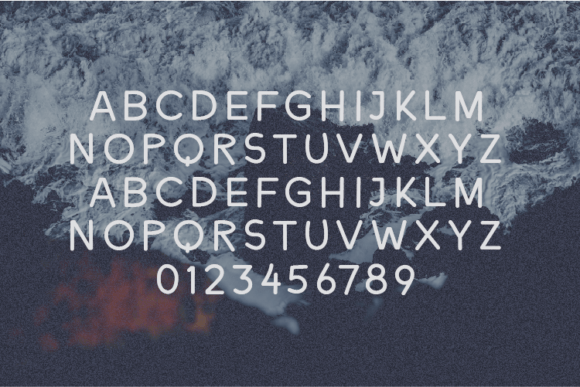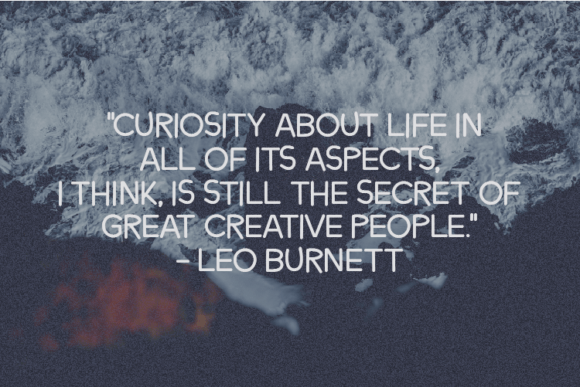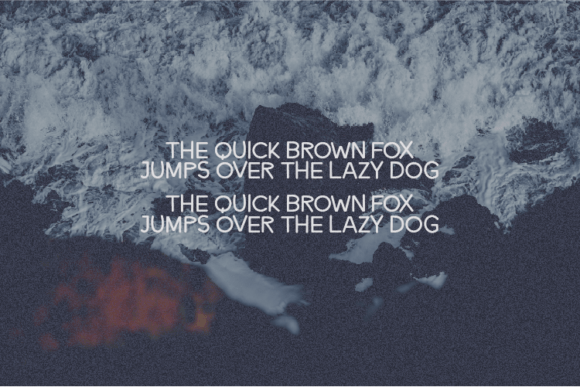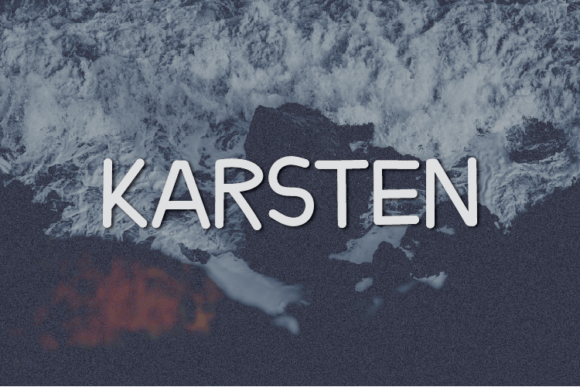
Introduction to Karsten Font
Karsten is a natural sans serif font made without changing a single node in each character’s indentation- this makes this font very interesting and unique.
Perfect for quotes, notes, tees, and any product design .
Key Features of Karsten Font